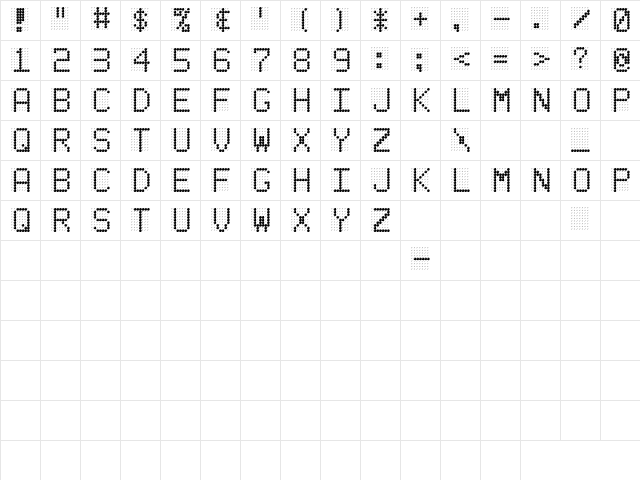
LED BOARD REVERSED Normal
Foundry: High-Logic
Designer: High-Logic - Erwin Denissen
Design Context for LED BOARD REVERSED
LED BOARD REVERSED is a composed and adaptable typeface that performs quietly and consistently across a wide range of design contexts.